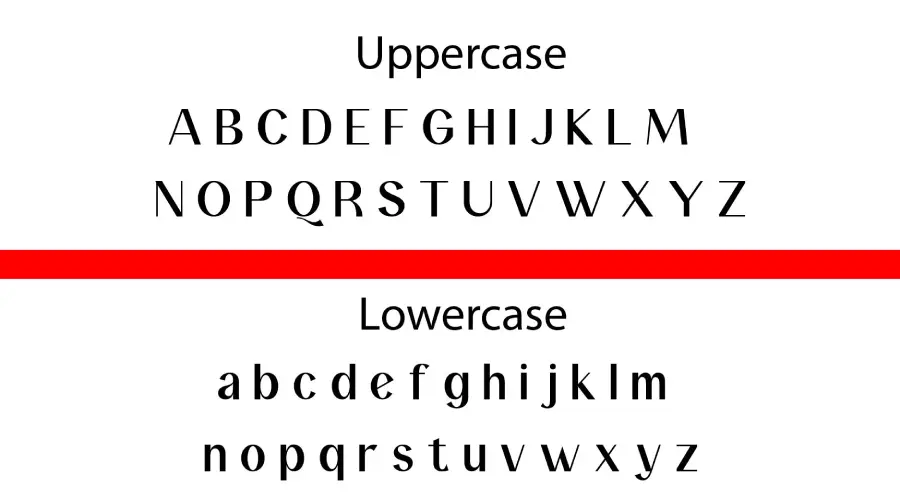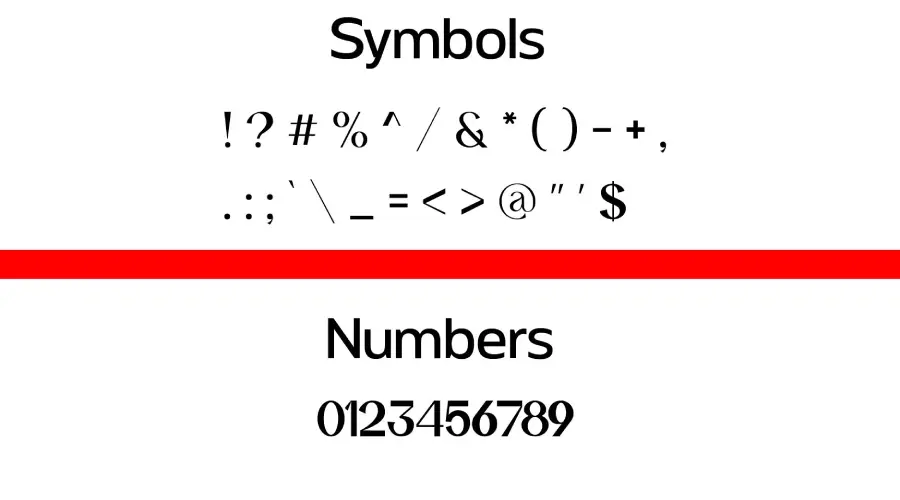
Maguire Font Download Free
Maguire Font features a simple modern, elegant Sans Serif type with gorgeous ligatures, lots of glyphs that are special, and support for multilingual characters. It’s a versatile font that can be used in small and large sizes. It comes PUA encoded, which means that you are able to access all these glyphs, swashes, and symbols with ease!
With 3 Weights, uppercase, lowercase, stylistic alternates, ligatures, numerals & punctuation, It is one of the best stylish sans serif.
Maguire is ideal for branding, logo design, clothing branding packaging for products magazines, magazine headers, or as a chic text overlay on the background of any image.
Maguire Font Characters
Maguire Font Symbols